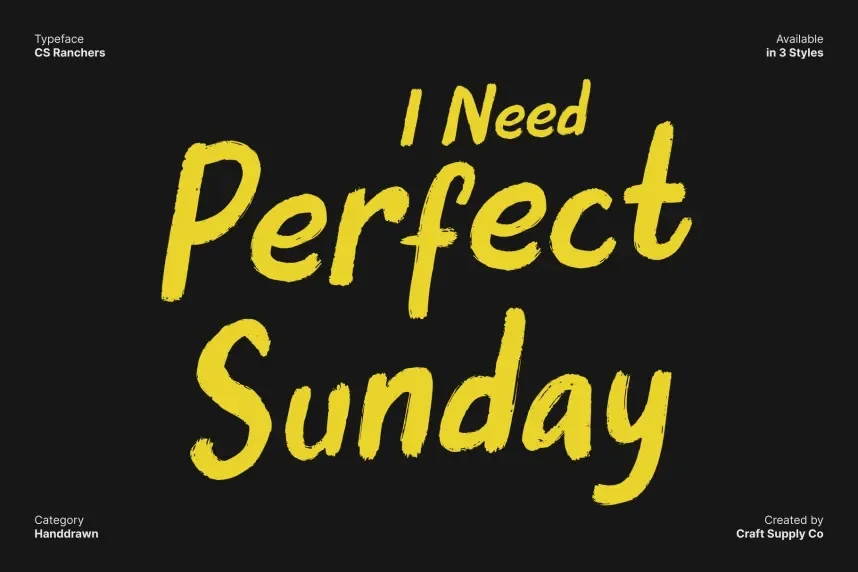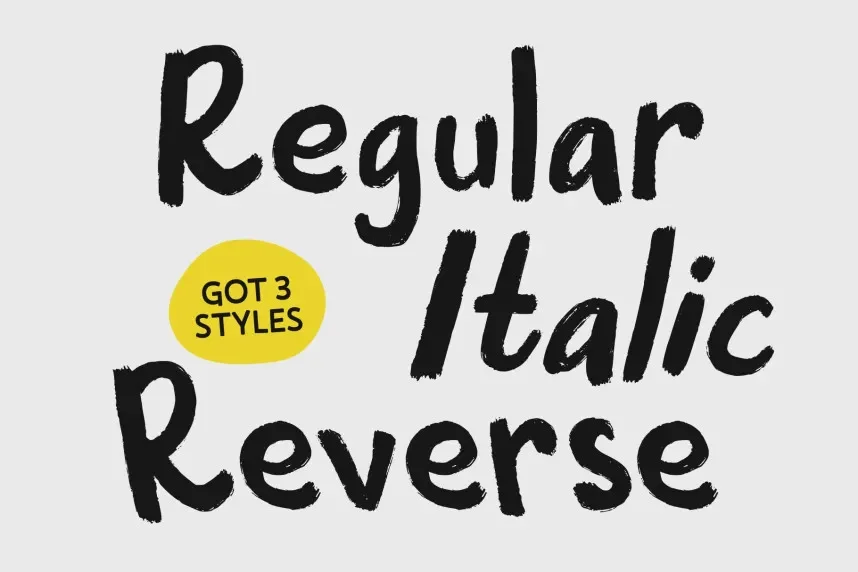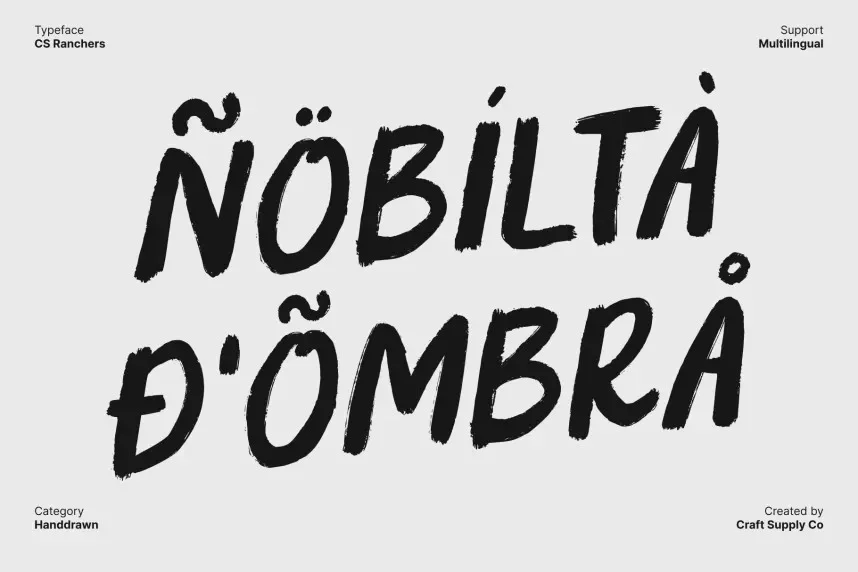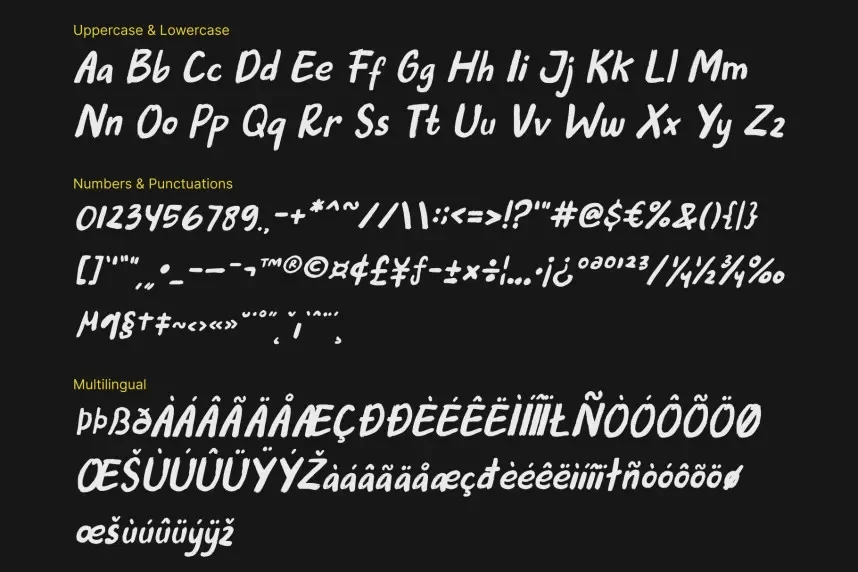
CS Ranchers Font addresses the need for strong, readable typography in branding and headline design. Overly stylized fonts often lose structure at larger sizes.
CS Ranchers is a bold display font with thick strokes and compact letterforms. The font uses minimal contrast and solid shapes, supporting consistent rendering across print and digital formats.